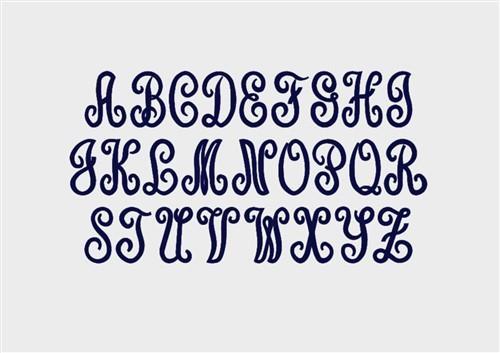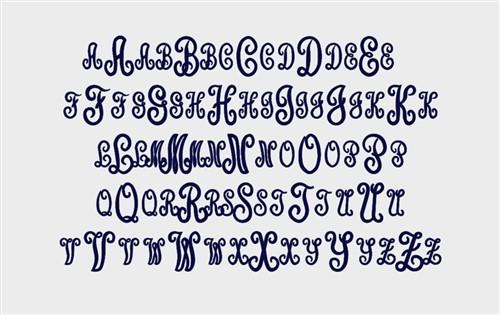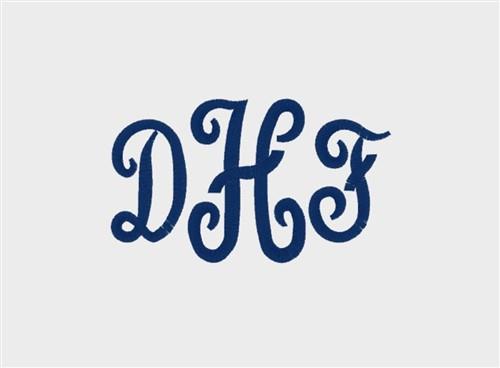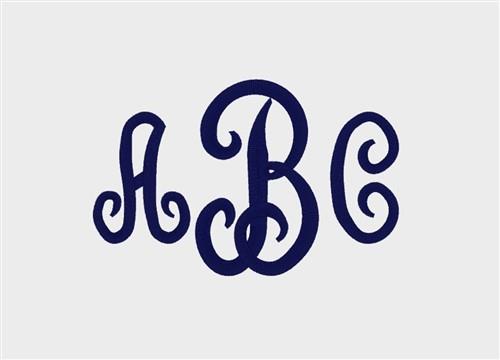
Artsy Knots is happy to present Upright script monogram machine embroidery font which has Monogram style embroidery font showcases flowing curves, ideal for personalizing items like pillows and bags. Available in formats including DST, PES, and more. included. If you would like to view more embroidery fonts and alphabets please search our embroidery fonts page.